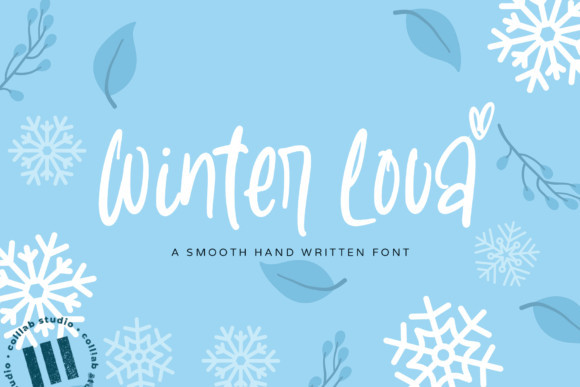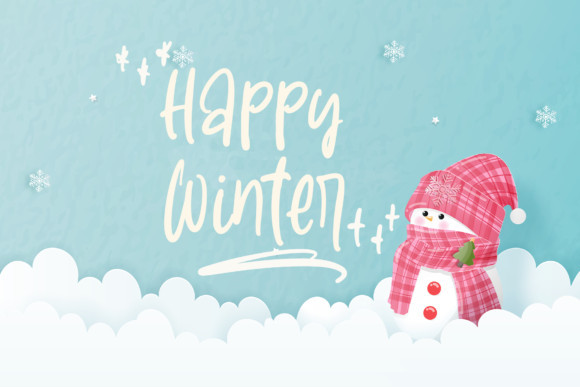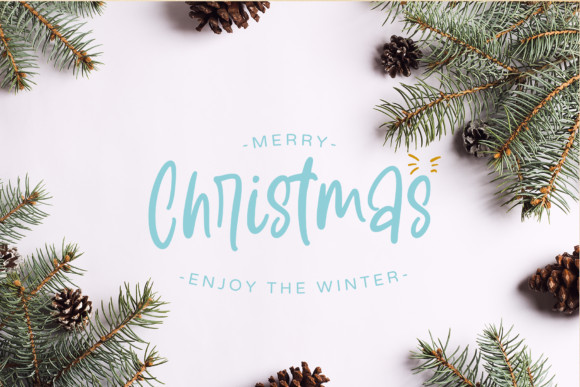
Winter Lova Font
Winter Lova is a sweet handwritten font. Incredibly versatile, this font fits a wide pool of designs, elevating them to the highest levels. Add this font to your favorite creative ideas and notice how it makes them come alive!